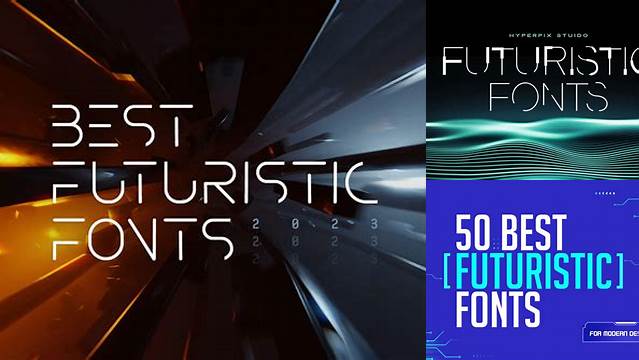
Best Futuristic Fonts: The Reddit Roundup
Hey guys, if you're on the hunt for the best futuristic fonts, you've landed in the right spot. I've scoured Reddit, the digital font forums, and design blogs to bring you the ultimate guide to the coolest, most cutting-edge typefaces out there. Whether you're a designer, a gamer, or just someone who appreciates a sleek, modern aesthetic, this article is your one-stop shop for all things futuristic fonts. We'll dive into the fonts that scream 'tomorrow,' exploring their unique features, how to use them, and where to find them. So, buckle up, because we're about to blast off into the world of digital typography!
H2: Defining the Futuristic Font Aesthetic
Okay, first things first: what really makes a font futuristic? It’s not just about slapping a few lines together and calling it a day. There’s a whole design philosophy behind it. The best futuristic fonts often incorporate clean lines, geometric shapes, and a sense of movement or technology. Think about the sleek interfaces in sci-fi movies, the logos of high-tech companies, or even the fonts used in video games. These fonts aim to evoke a feeling of innovation, progress, and the unknown. One of the core characteristics of futuristic fonts is their ability to appear both modern and timeless. They often avoid overly ornate or embellished styles, focusing instead on simplicity and clarity. This doesn’t mean they’re boring, though! Many futuristic fonts feature unique details, like subtle angles, unusual letterforms, or digital-inspired elements. The goal is to create a visual language that speaks to the future, whether it’s a distant galaxy or the next big tech innovation. It's all about capturing that essence of what's next, that sense of looking forward.
The designers of these fonts are constantly pushing boundaries. They're experimenting with new forms and concepts, creating typefaces that feel fresh and exciting. Another key element is their versatility. These fonts can be used in a wide range of projects, from branding and web design to print materials and motion graphics. Their ability to adapt and remain impactful across different platforms makes them invaluable to any designer. They're not just for show, either; they're designed with readability in mind. They need to be legible at various sizes, so the futuristic fonts need to be both stylish and functional. This balance is key to their success. And because of their forward-thinking nature, they can often add a level of sophistication and innovation to any design. Think about how a futuristic font can completely change the vibe of a logo or website. It can instantly communicate a sense of modernity, technology, and forward-thinking. The impact on the overall design is amazing, and it's easy to see why these fonts are so popular and in demand, especially with the rising tide of technology.
H3: Key Characteristics of Futuristic Typography
When you're looking for a futuristic font, there are a few characteristics to keep in mind. First off, geometric shapes play a huge role. Think sharp angles, clean lines, and perfectly formed circles and squares. This creates a sense of order and precision, which is very appealing. Secondly, monospaced fonts are very prevalent. These fonts give off a techy, coding vibe. The use of these fonts gives an orderly and uniform look to your design. Sans-serif fonts are another crucial part of the futuristic aesthetic. Sans-serif fonts get rid of the little strokes on the letters. This gives the font a nice, clean look, which is perfect for designs that want to be seen as cutting-edge.
Next up, the use of bold weights and heavy lines. These create a sense of power and emphasis, helping to draw the viewer's eye to the text. You'll also see variable fonts gaining traction. These are dynamic fonts that can change their weight, width, and other properties, offering a greater degree of control over your typography. Also, look for fonts with digital or tech-inspired elements. This might include letterforms that resemble circuit boards, pixels, or the interfaces of futuristic devices. You can also check out fonts that have been inspired by space exploration, which often feature sleek, streamlined letterforms. These fonts also capture a sense of exploration and the vastness of space. Finally, consider unique letterforms. Designers are coming up with new and creative ways to express the futuristic aesthetic with unique letter shapes. The aim here is to break the mold and make your designs stand out.
H2: Top Futuristic Fonts Found on Reddit
Now, let's get to the good stuff: the best futuristic fonts according to the Reddit community. After diving through countless threads and discussions, several fonts consistently come up as fan favorites. Orbitron is one such font. Orbitron is a geometric sans-serif that’s clean, modern, and feels like it was ripped straight out of a spaceship's control panel. It's highly versatile and works well in headlines, logos, and even body text (if used at larger sizes). Another popular choice is Bebas Neue. This is a great free font that’s a very popular font, and it works really well for headlines. Its high x-height and clean lines make it incredibly readable, and its bold presence demands attention. Then there is Montserrat, a modern sans-serif that is widely accessible and incredibly versatile. It works well in a lot of different design projects.
On Reddit, you'll also come across love for fonts with more specific themes. Fonts like Digital-7 and similar monospace fonts are often praised for their retro-futuristic vibe, evoking images of old arcade games and digital displays. Nexa is another favorite. This font has a clean, geometric design with a variety of weights, which makes it super versatile. It's great for both headlines and body text. Users also love fonts that have a hint of sci-fi influence. Reddit users also often recommend Roboto. Roboto is a modern and versatile sans-serif font developed by Google, and it's highly legible. It's perfect for both digital and print applications. And then there is Raleway, a great font for headlines and body text, with a clean and modern aesthetic. Keep in mind that the best font for you will depend on your particular needs. Consider the project's overall design, the message you want to convey, and the level of readability you require. Reddit is a great resource for inspiration, but don’t be afraid to experiment and find what works best for you!
H3: Deep Dive: Orbitron and Bebas Neue
Let's take a closer look at two of the most popular futuristic fonts: Orbitron and Bebas Neue. Orbitron is a geometric sans-serif that was designed specifically for display purposes. This means it's perfect for headlines, titles, and any situation where you need to grab attention. Its clean, space-age design makes it a favorite among those seeking a futuristic aesthetic. The font comes in a range of weights, allowing for flexibility in your designs. Orbitron is excellent for tech-related projects, gaming interfaces, or any project that needs a modern, technological feel. It gives off a high-tech, sleek vibe, which is perfect for projects that are looking to be forward-thinking.
Bebas Neue, on the other hand, is a tall and slender sans-serif font that's known for its readability. It's a perfect choice for big headlines or titles that need to make a statement. Its clean and minimalist design, combined with its high x-height, makes it very readable. The design is incredibly clean and modern, which makes it really versatile, with a bold appearance. Bebas Neue is a great choice for projects like posters, website headings, and branding materials where a strong visual impact is desired. In short, while Orbitron excels in its futuristic appeal, Bebas Neue shines with its bold impact and readability. One is ideal for a high-tech feel and the other grabs attention with its visual impact, these two are definitely must-know fonts. This font offers a perfect blend of simplicity and modernity, making it an excellent choice for a wide range of design projects. They are both excellent fonts, each with their own special flair.
H2: Free vs. Premium Futuristic Fonts: What's the Deal?
When it comes to best futuristic fonts, you'll find a wide range of options, both free and premium. But what are the differences, and which should you choose? The good news is that there are many free, high-quality futuristic fonts available. Websites like Google Fonts and Font Squirrel are treasure troves of amazing typefaces that you can download and use for free. These fonts are often open-source, meaning they come with a generous license that allows for commercial use. The catch is that free fonts may be limited in terms of the number of weights and styles available. They might also lack some of the advanced features you'll find in premium fonts. And, of course, the quality can sometimes vary.
Premium fonts, on the other hand, are usually created by professional font designers and foundries. They come with a higher price tag, but you often get a lot more for your money. Premium fonts typically offer a wider range of weights, styles, and special characters. They're also often better optimized for specific uses, such as web design or print. Furthermore, premium fonts come with detailed licensing agreements that specify how you can use the font (e.g., for personal or commercial projects). The advantage of premium fonts is the quality and support, and also the additional features they provide. They can also often provide a level of polish and sophistication that free fonts can’t match. When choosing, the project is important. For personal projects, a free font may be perfectly adequate. For commercial projects, especially those with high visibility, investing in a premium font can be a worthwhile decision. It can make a big difference in the final product's overall look and feel.
H3: Where to Find Free Futuristic Fonts
So, where do you find those amazing free futuristic fonts? Here are a few of the best places to start your search. First up, Google Fonts. This is one of the most popular resources for free fonts, offering a huge collection of high-quality typefaces, including many with a futuristic aesthetic. Font Squirrel is another great option. This website curates a selection of free fonts, ensuring that the quality is high and the licensing is clear. You can also check out DaFont, which has a massive selection of fonts. Keep in mind, that not all fonts on DaFont are suitable for commercial use. Be sure to check the licensing before you download.
Behance and Dribbble can also be good resources for discovering new fonts. Many designers share their work on these platforms, and sometimes they’ll offer their fonts for free. Just look through the design community, and you’ll find a wealth of options. Another great place to look is on websites like Creative Market and Envato Elements. While these sites are known for premium fonts, they often offer free fonts as part of their subscription or promotional offers. It's worth checking their free resources regularly to see what's available. Lastly, don't forget to look at the websites of individual font designers and foundries. Many designers offer free fonts as a way to promote their work. Searching directly for